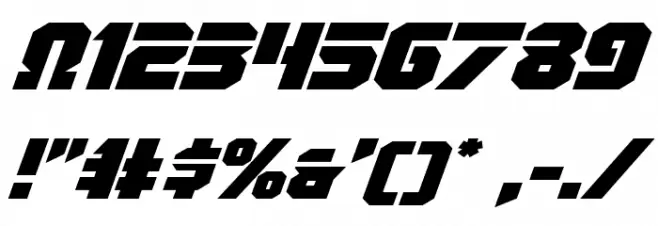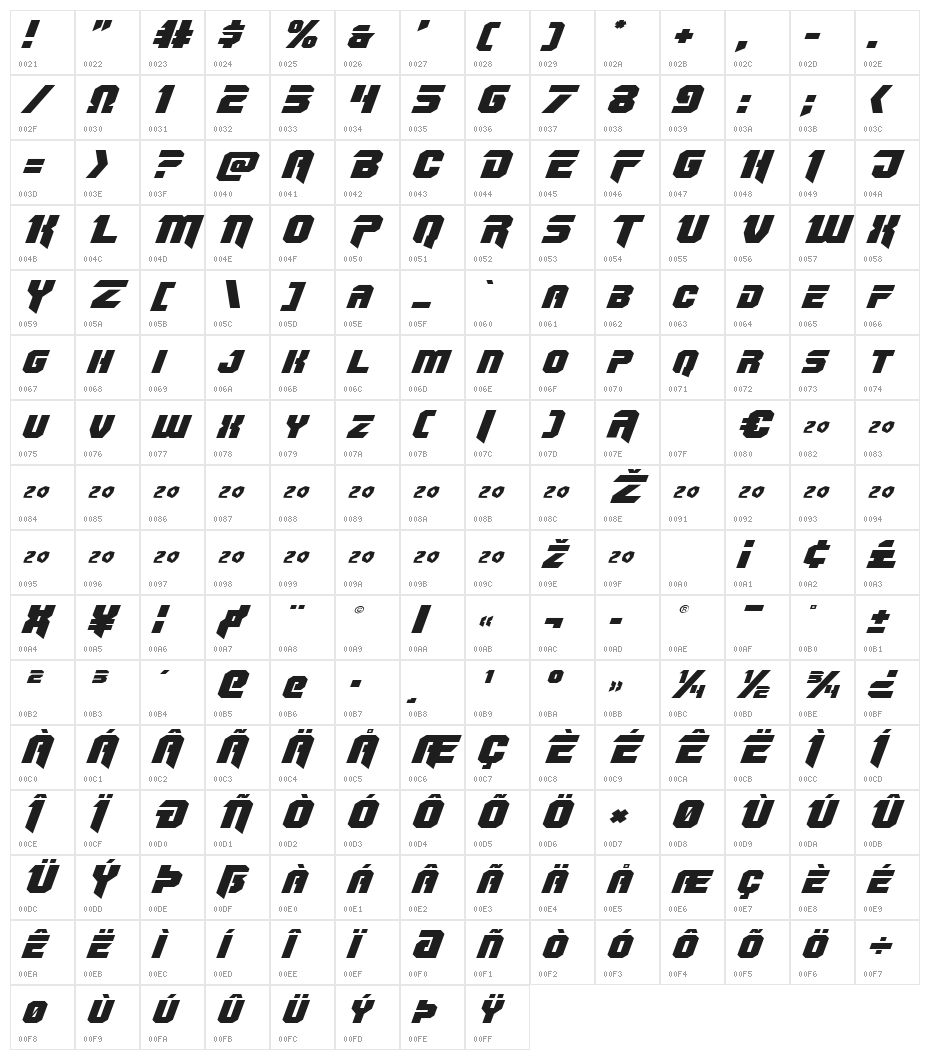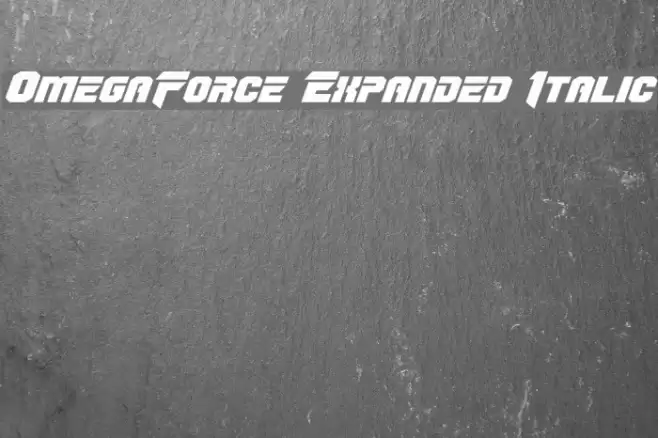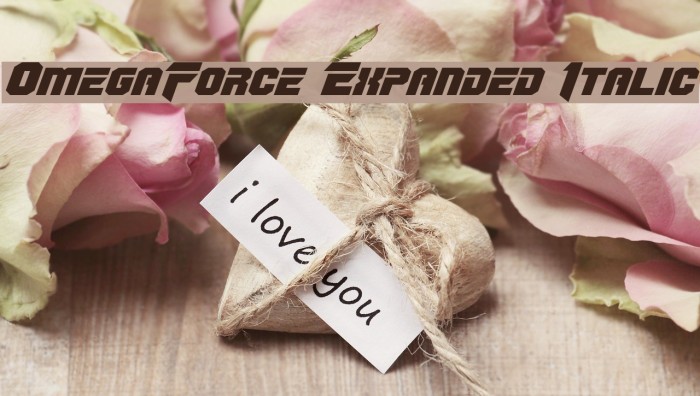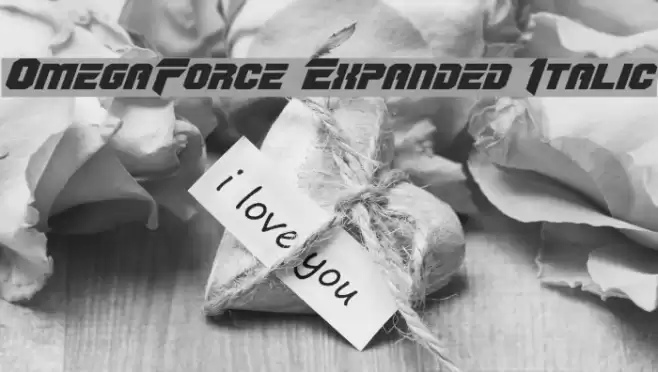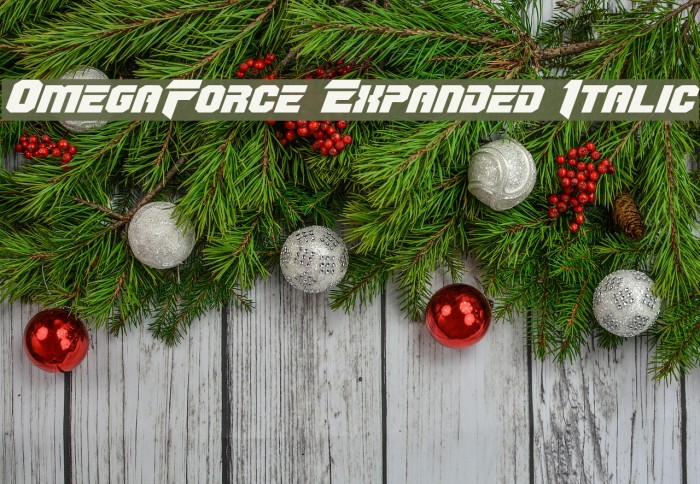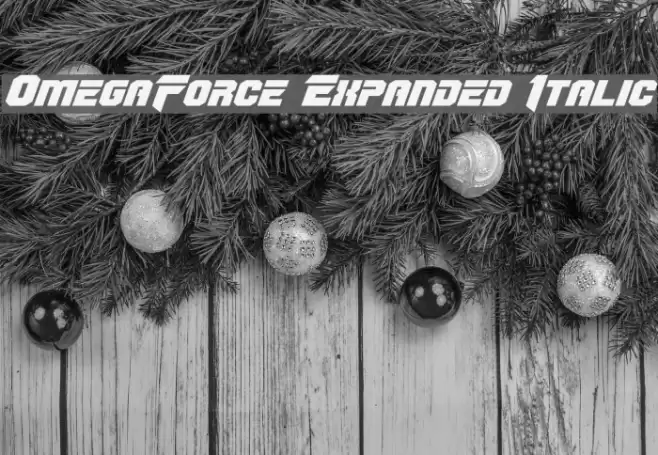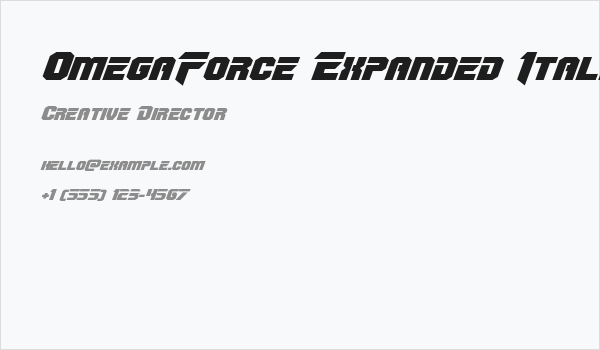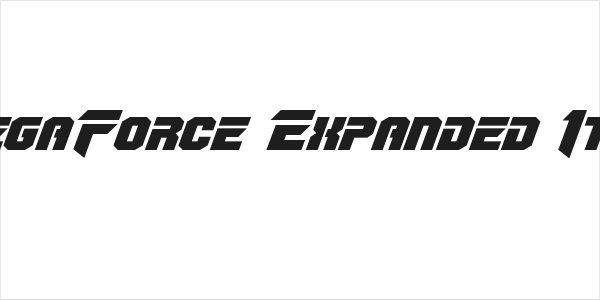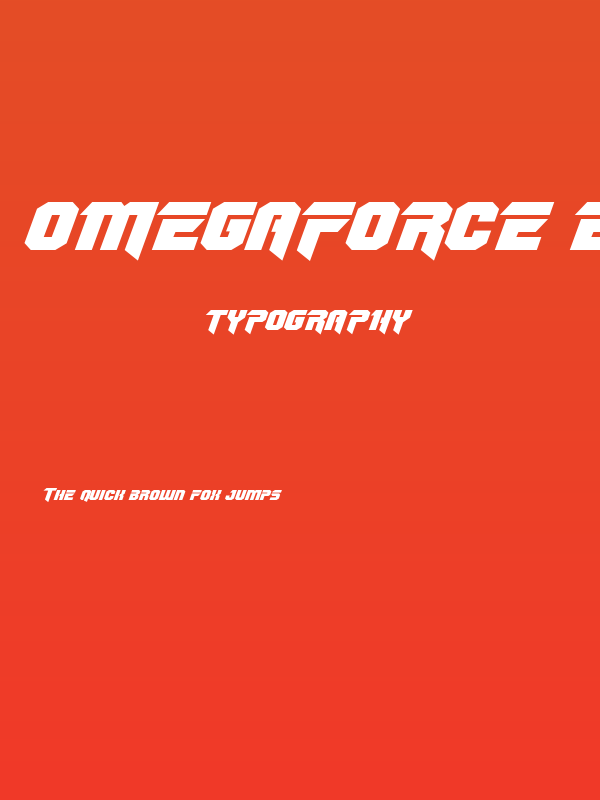
OmegaForce Expanded Italic Font
OmegaForce Expanded Italic Description
This font features a bold, angular design with a futuristic and dynamic aesthetic. The characters are sharply cut with a distinct slant, emphasizing movement and speed. The expanded width of the letters gives it a commanding presence, making it ideal for attention-grabbing headlines or logos. The italic style adds to its modern and edgy feel, while the consistent stroke thickness provides a uniform appearance. The font includes a full set of uppercase and lowercase letters, numbers, and a variety of special characters, ensuring versatility in design applications.
| Proposed Projects | Ideal for sci-fi themed projects, video game titles, sports branding, and dynamic poster designs. |